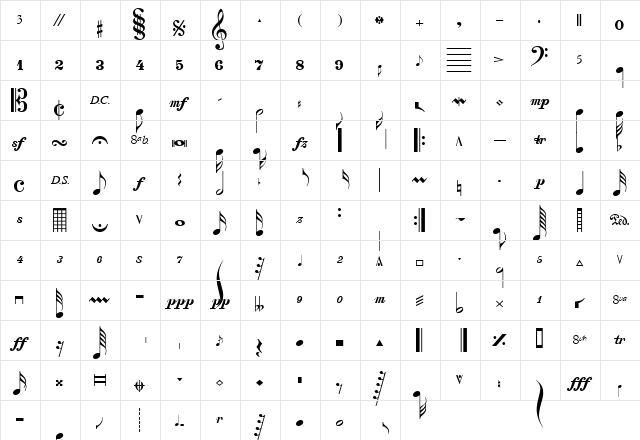
PGMusic F Regular
Design Context for PGMusic F Typeface
PGMusic F takes a measured approach to typography — its balanced proportions and neutral character make it a reliable workhorse for both digital and print work.